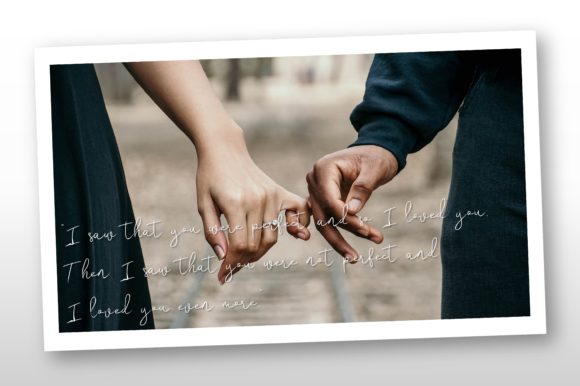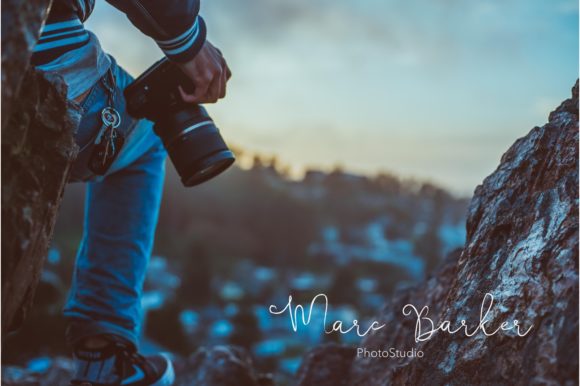
Maritza Beatric Font
About Maritza Beatric Font
“Maritza Beatric” is a lovely and delicate script font that embodies elegance and class. With its graceful curves and intricate details, this font adds a touch of sophistication and refinement to any design.
The beauty of “Maritza Beatric” lies in its versatility and ability to bring a refreshing look to your designs. Whether you’re working on wedding invitations, logos, branding materials, or any other project that requires a touch of elegance, this font is a perfect choice. Its delicate letterforms and flowing strokes create a sense of beauty and grace, capturing attention and leaving a lasting impression.
When used in wedding invitations, “Maritza Beatric” adds a romantic and timeless touch. The script style conveys a sense of love and celebration, making it an ideal choice for capturing the essence of a couple’s special day. The delicate curves and details of each letter enhance the overall aesthetic, creating an invitation that is both elegant and captivating.
In branding and logo design, “Maritza Beatric” brings a fresh and sophisticated look. Its refined appearance and attention to detail make it a standout choice for businesses that want to convey elegance and professionalism. The flowing script adds a touch of personality and charm, making your brand memorable and distinctive.
Moreover, “Maritza Beatric” can be used in various other design projects, such as greeting cards, quotes, stationery, and more. Its delicate and refreshing look adds a sense of beauty and refinement to these creations, making them stand out and leaving a lasting impression on the viewer.
In conclusion, “Maritza Beatric” is a lovely and delicate script font that exudes elegance and class. Its versatility and refreshing look make it a perfect choice for a wide range of design projects. Whether you’re working on wedding invitations, branding materials, or other creations that require an elegant touch, this font will elevate your designs and bring a beautiful and refreshing look.